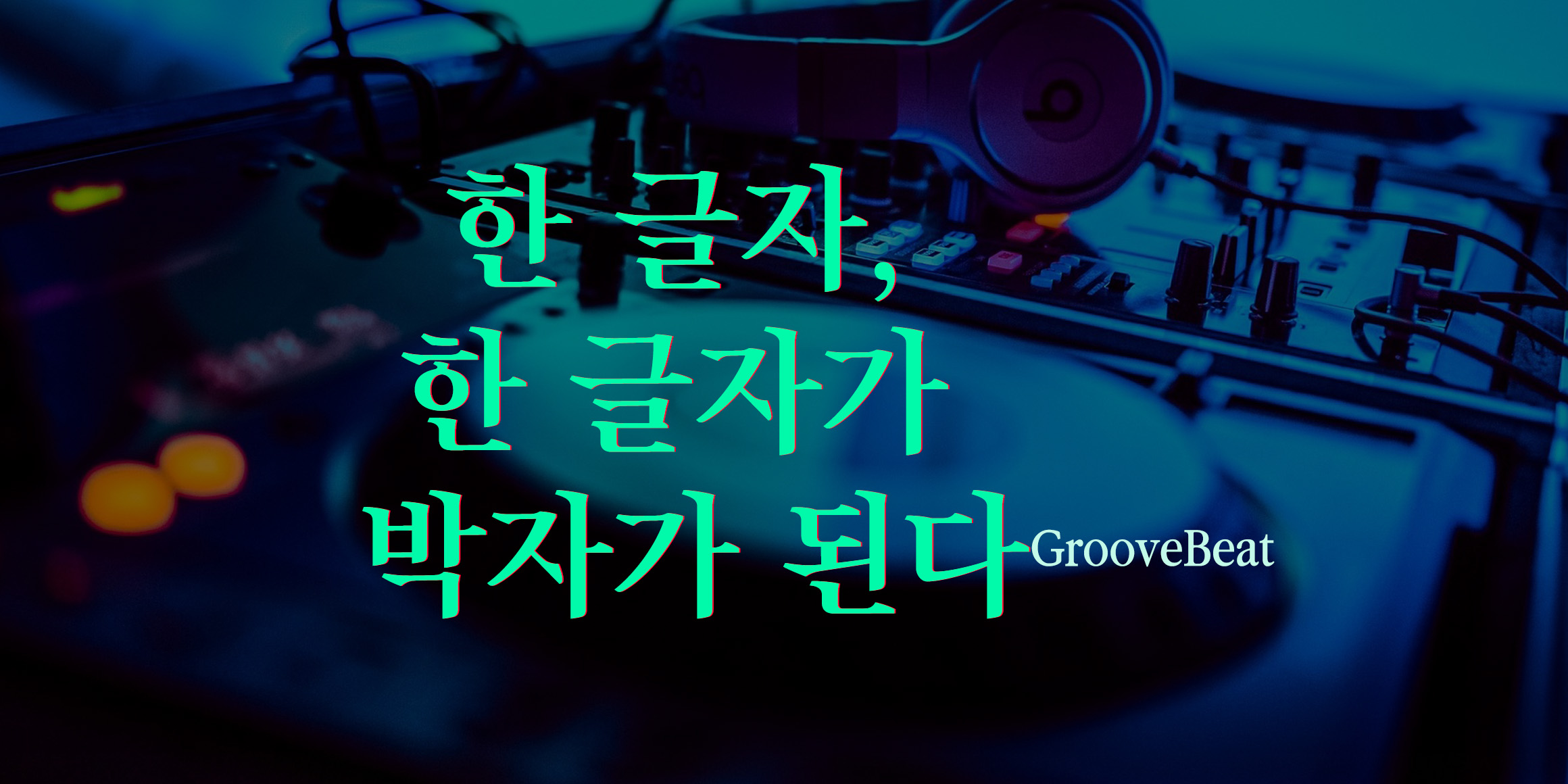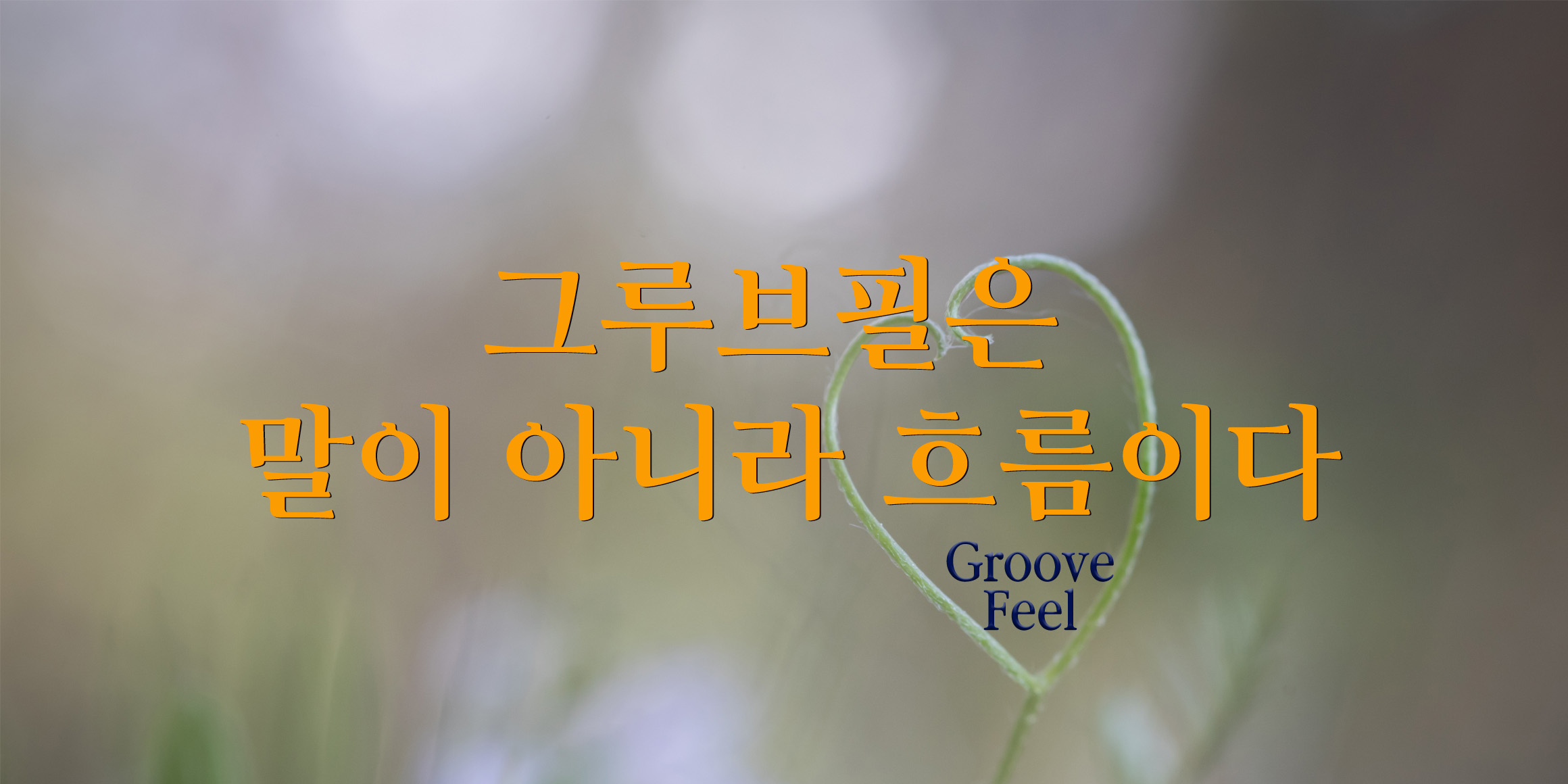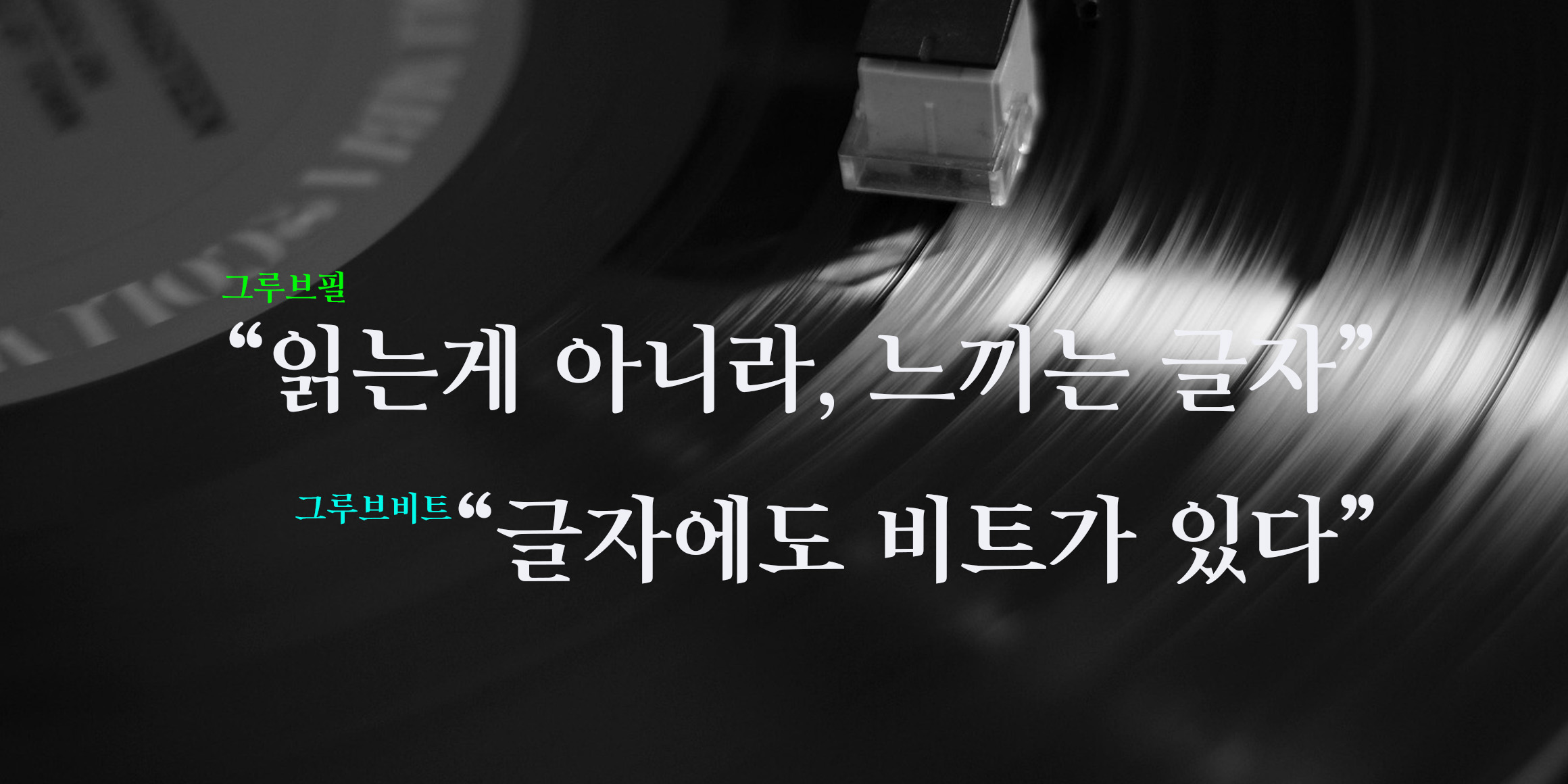
DXGroove
• Feel
• Beat
It is a font that melts the unique sense of rhythm and flexibility given by the word "Groove" into the structure of Hangul, and while maintaining the family look of the two fonts, it has a differentiated concept according to texture and purpose.
The groove typeface is an emotional typeface with a typography in which rhythm is visible and sound is felt.
Feel emphasized the curve of letters, subtle slope, and natural connection to sensory flow and flexible rhythm.
The 'fast space' of the letters was designed to give a full feeling, but it was not stuffy,
It is designed so that the flow of the curve is smoothly connected.
It is recommended for emotional titles, cover designs, book designs, subtitles, and broadcast advertisements.
"Beat" is a typeface inspired by the "Beat" of music with a cheerful and intense feeling that continues to break.
The regular sense of beat was visualized by boldly cutting the stroke or using the angle.
Compared to the thickness of the stroke, the width of the letter is kept constant, maintaining a constant tension as if the metronome were moving.
Street Fashion Brand Logo, Broadcast, YouTube Subtitles, Title, Headlines
I recommend it for the poster of the performance.